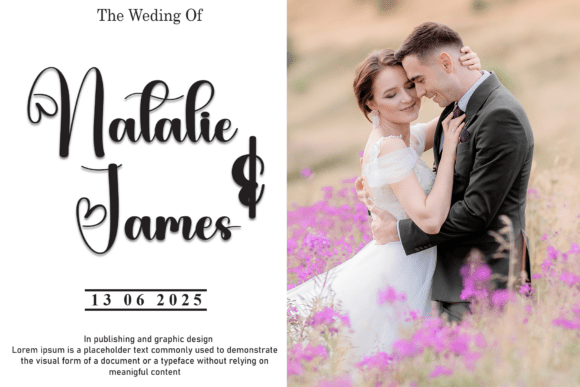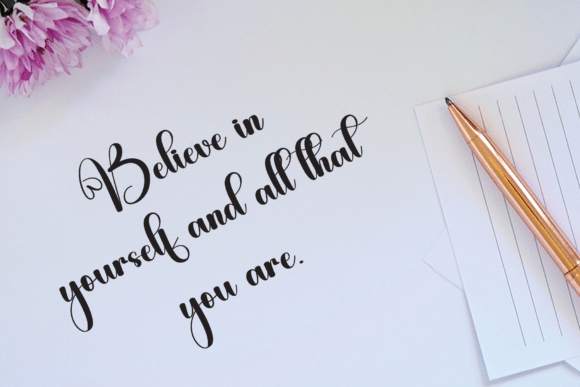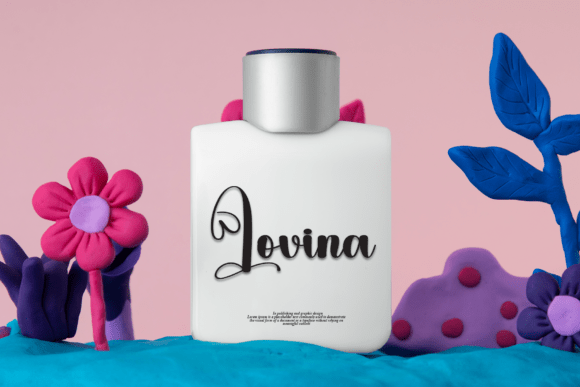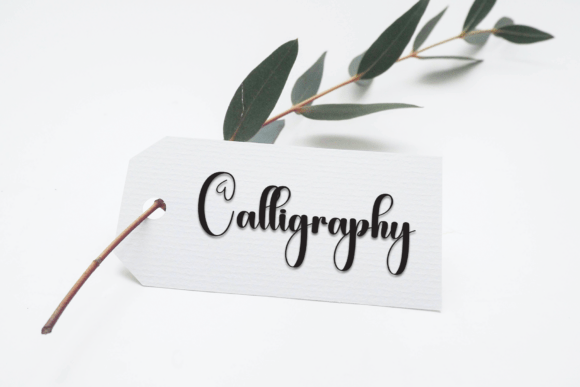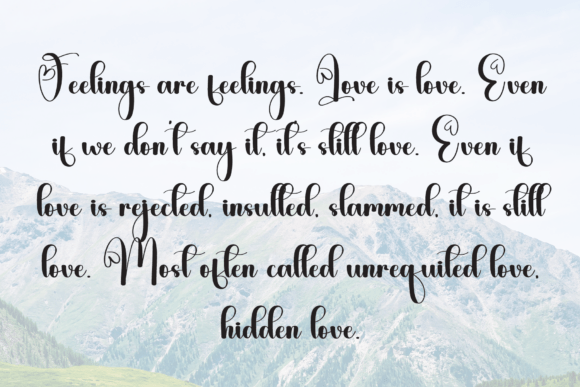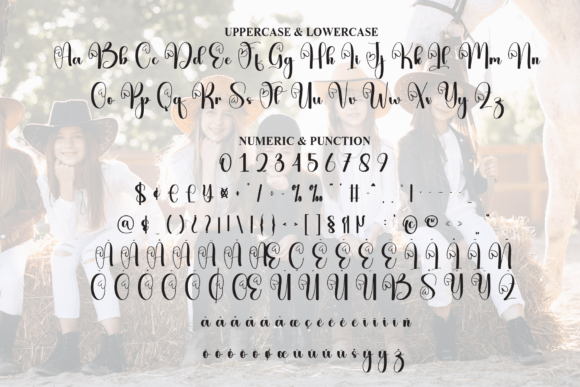
Cowgirls Font: Add a Touch of Whimsy to Your Designs
Are you looking for a font that can add a dash of personality to your designs? Look no further than Cowgirls Font, a charming and personable handwritten display font that perfectly balances sweetness with whimsy. This adorable and lighthearted font is the ultimate choice for crafting wedding invitations, personalized cards, or any design project craving an infusion of light-hearted joy.
What Makes Cowgirls Font So Special?
Cowgirls Font is a unique and delightful font that can effortlessly add a playful spin to your creations. Its whimsical design makes it perfect for designers and crafters who want to add a touch of personality to their work. Whether you’re creating wedding invitations, party decorations, or social media graphics, Cowgirls Font is sure to steal the spotlight.
Perfect for Wedding Invitations and Personalized Cards
Wedding invitations and personalized cards are special occasions that deserve a font that’s just as special. Cowgirls Font is the perfect choice for these types of projects, as it adds a touch of elegance and whimsy to your designs. Imagine creating beautiful wedding invitations that set the tone for a romantic and playful celebration. With Cowgirls Font, you can create stunning designs that will leave a lasting impression on your loved ones.
Infuse Your Designs with Light-Hearted Joy
Cowgirls Font is more than just a font – it’s a way to infuse your designs with light-hearted joy. Its playful and whimsical design makes it perfect for projects that require a touch of fun and personality. Whether you’re creating designs for a children’s party, a baby shower, or a social media campaign, Cowgirls Font is sure to bring a smile to people’s faces.
Key Features of Cowgirls Font
• Handwritten display font: Cowgirls Font is a handwritten display font that adds a personal touch to your designs.
• Whimsical design: Its whimsical design makes it perfect for projects that require a touch of fun and personality.
• Perfect for wedding invitations and personalized cards: Cowgirls Font is the ultimate choice for crafting wedding invitations, personalized cards, or any design project craving an infusion of light-hearted joy.
• Light-hearted and playful: This font is sure to add a playful spin to your creations and bring a smile to people’s faces.
Tips for Using Cowgirls Font
Here are some tips for using Cowgirls Font in your designs:
• Pair it with a simple background: Cowgirls Font is a statement font, so pair it with a simple background to make it stand out.
• Use it for headings and titles: This font is perfect for headings and titles, as it adds a touch of personality to your designs.
• Experiment with different colors: Cowgirls Font looks great in a variety of colors, so don’t be afraid to experiment and find the perfect hue for your design.
In conclusion, Cowgirls Font is a charming and personable handwritten display font that’s perfect for designers and crafters who want to add a touch of personality to their work. Its whimsical design makes it perfect for wedding invitations, personalized cards, and any design project craving an infusion of light-hearted joy. With its key features, tips for use, and versatility, Cowgirls Font is sure to become a favorite in your design arsenal.
Get Ready to Steal the Spotlight with Cowgirls Font